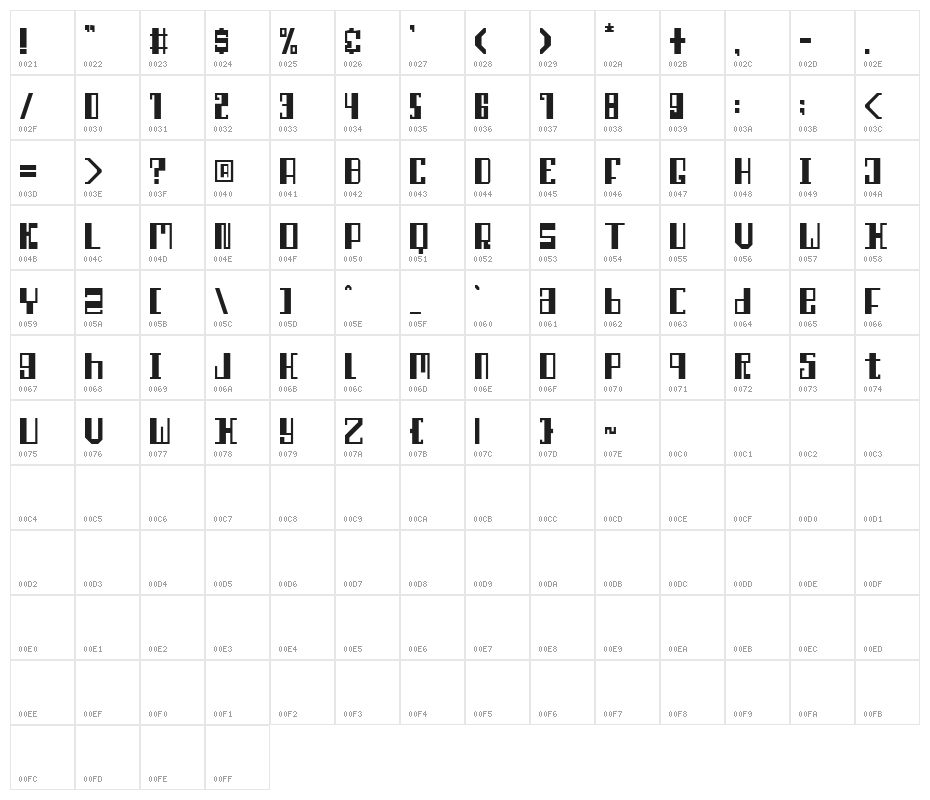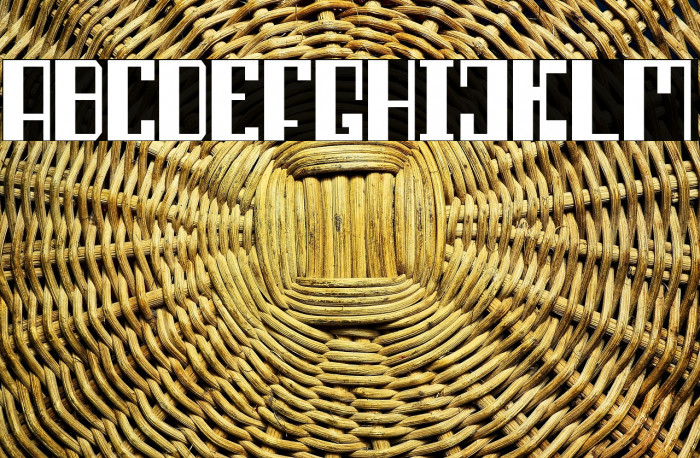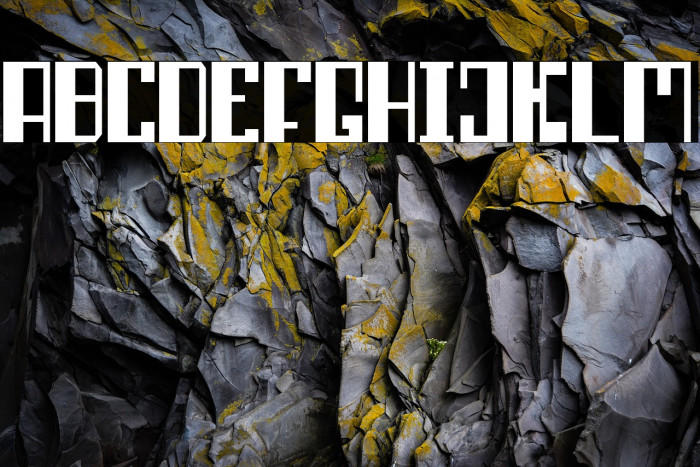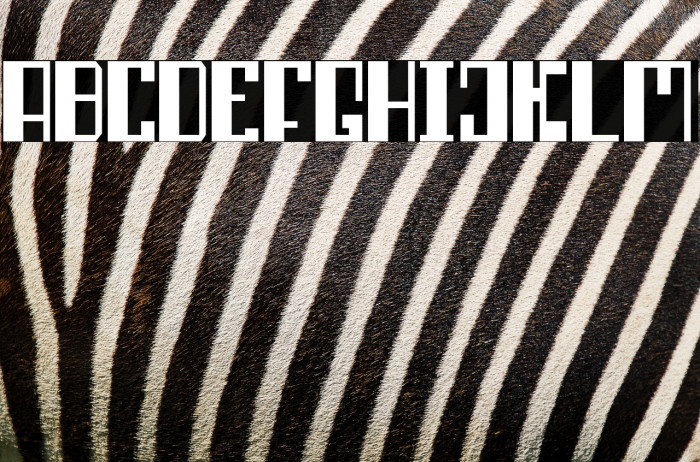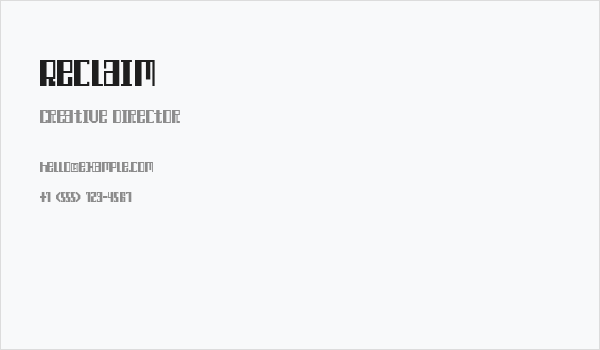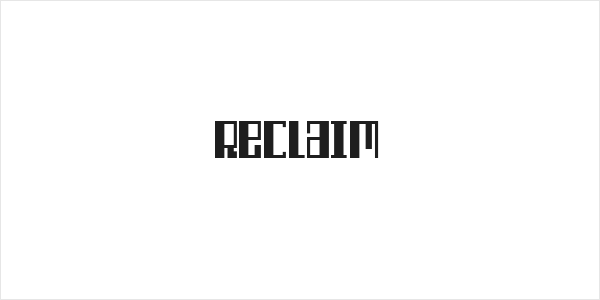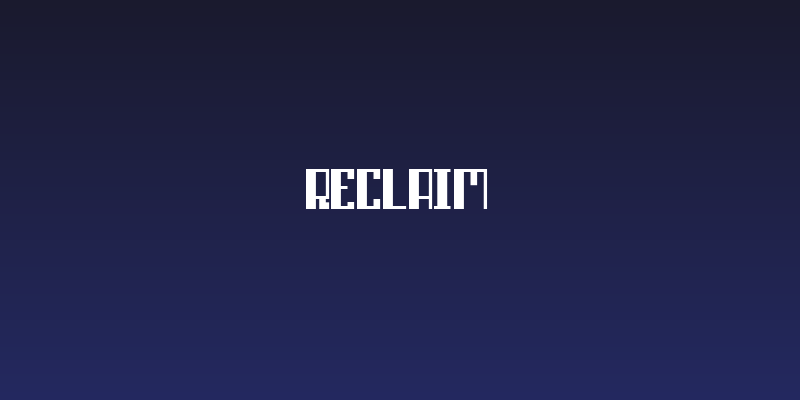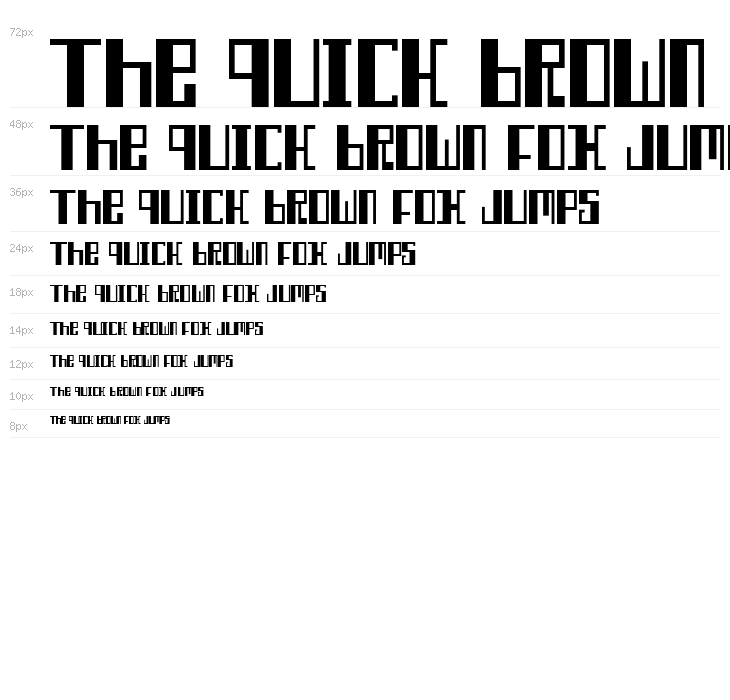
Reclaim Font
Reclaim Description
This font features a bold and geometric style with a strong emphasis on angular shapes and sharp edges. The characters are constructed with a blocky, almost mechanical appearance, giving it a futuristic and industrial feel. The uppercase and lowercase letters maintain a consistent height, contributing to a uniform and cohesive look. The numerals and special characters follow the same design principles, ensuring a seamless integration across all glyphs. This font's unique style makes it stand out, ideal for projects that require a modern and edgy aesthetic.
| Proposed Projects | Ideal for branding, posters, album covers, and any project needing a modern, edgy look. |